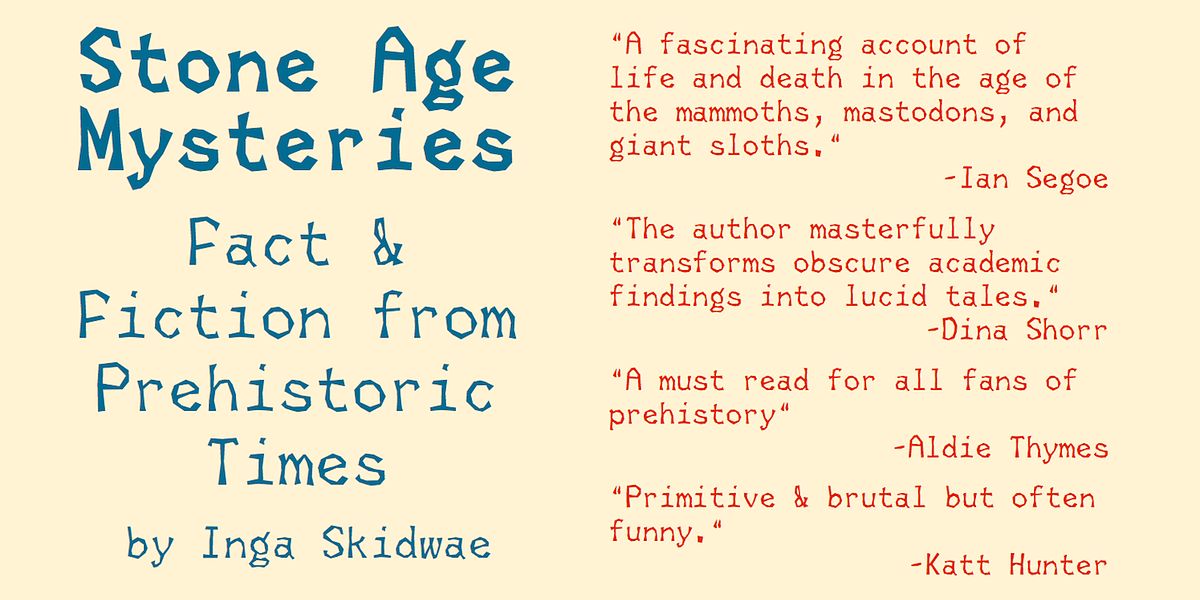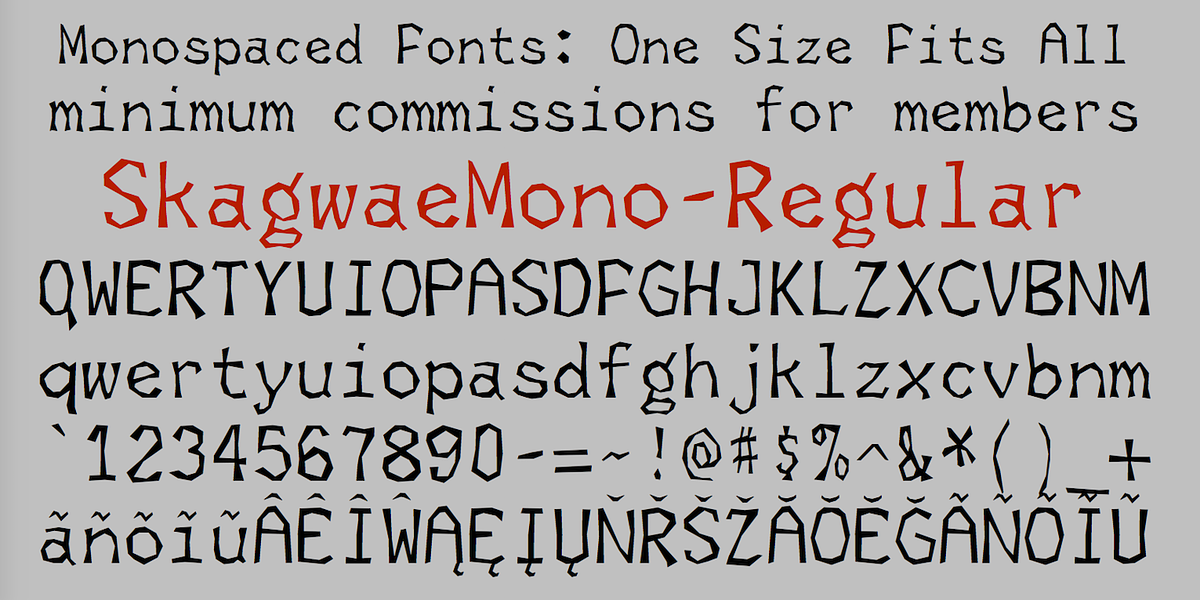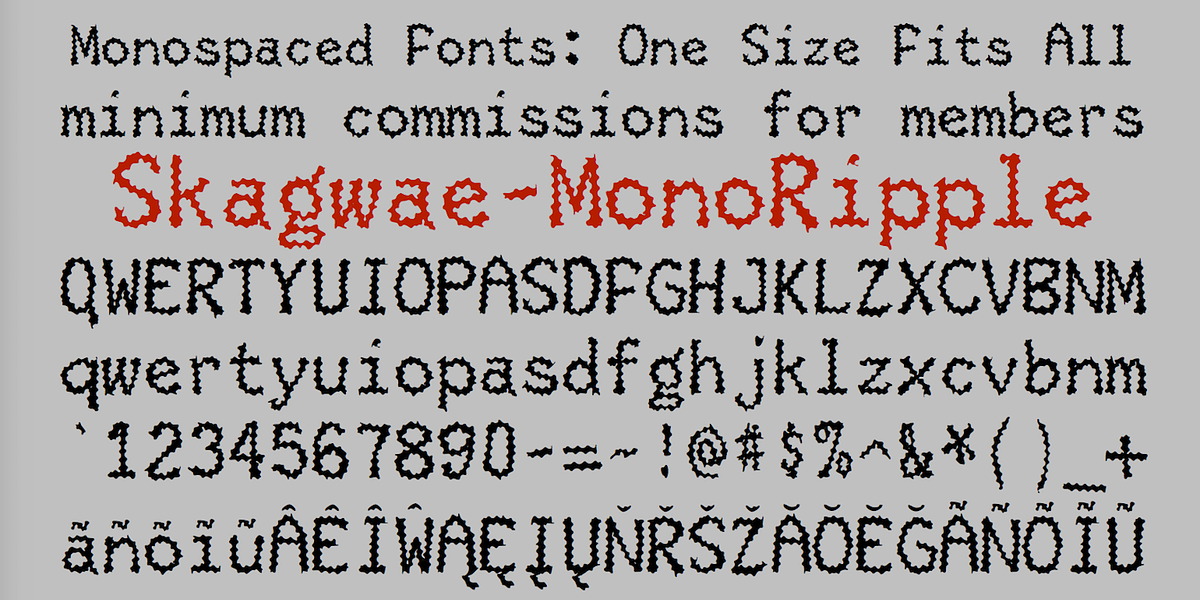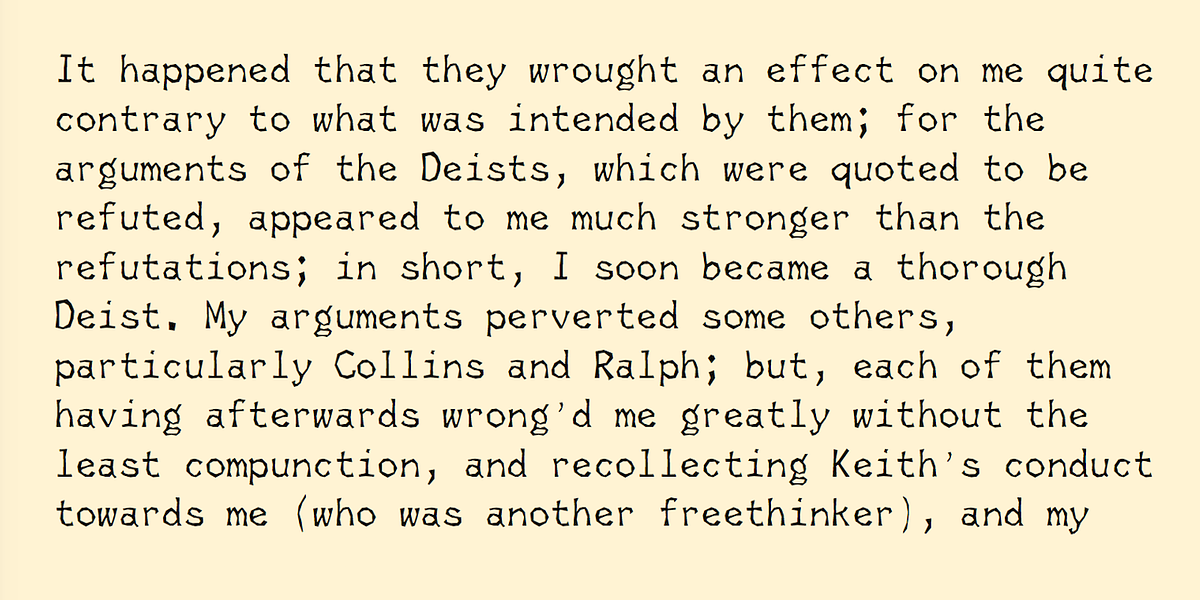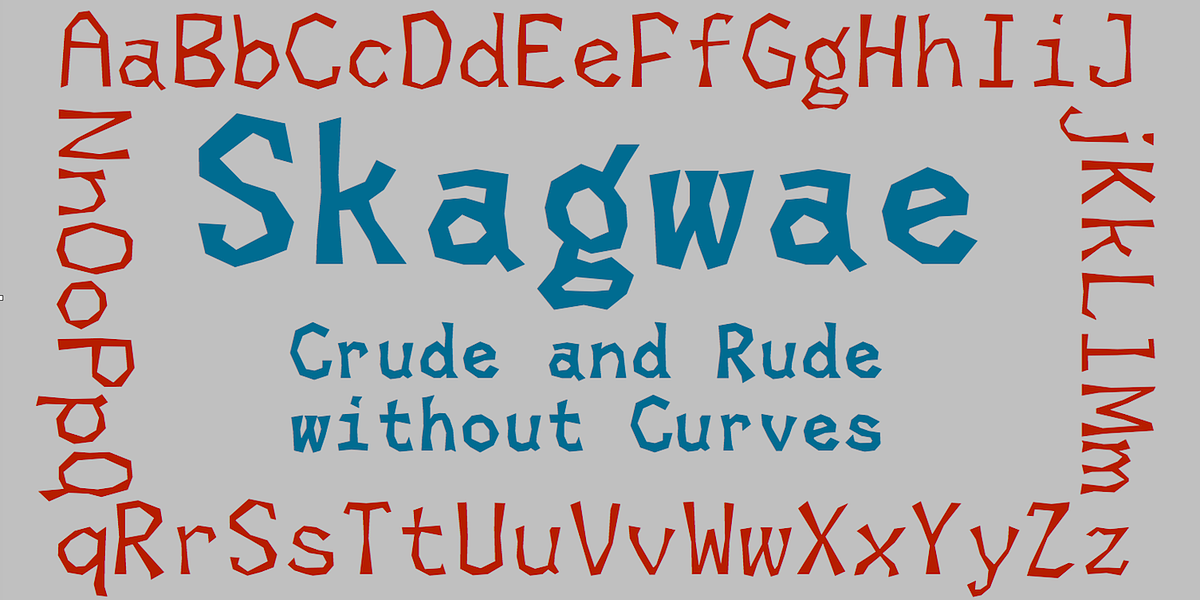
SkagwaeMono
Skagwae is a geometric sans-serif font characterized by its straight line segments and an intentionally rough aesthetic. While the letter shapes themselves are fairly standard, the use of choppy lines gives the font a crude, unfinished appearance. This effect is particularly noticeable at larger point sizes. Despite this roughness, Skagwae remains surprisingly legible even when used in smaller sizes. The font family includes three styles: Regular, Bold, and Rippled, which is a distorted version of the Regular style with added curves.